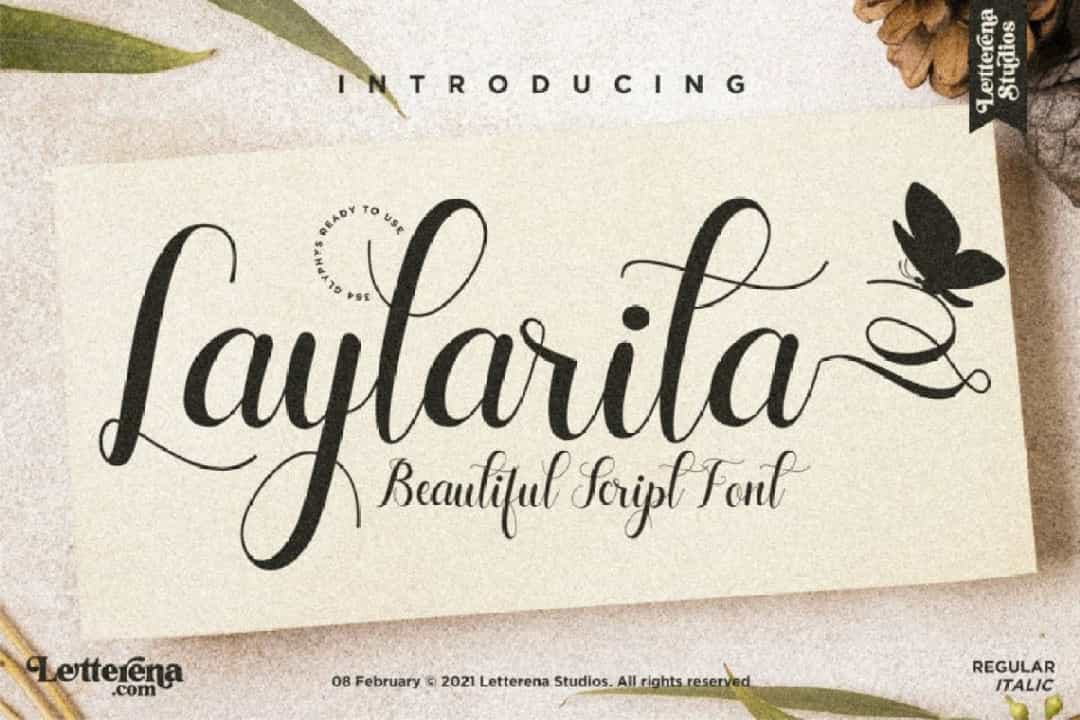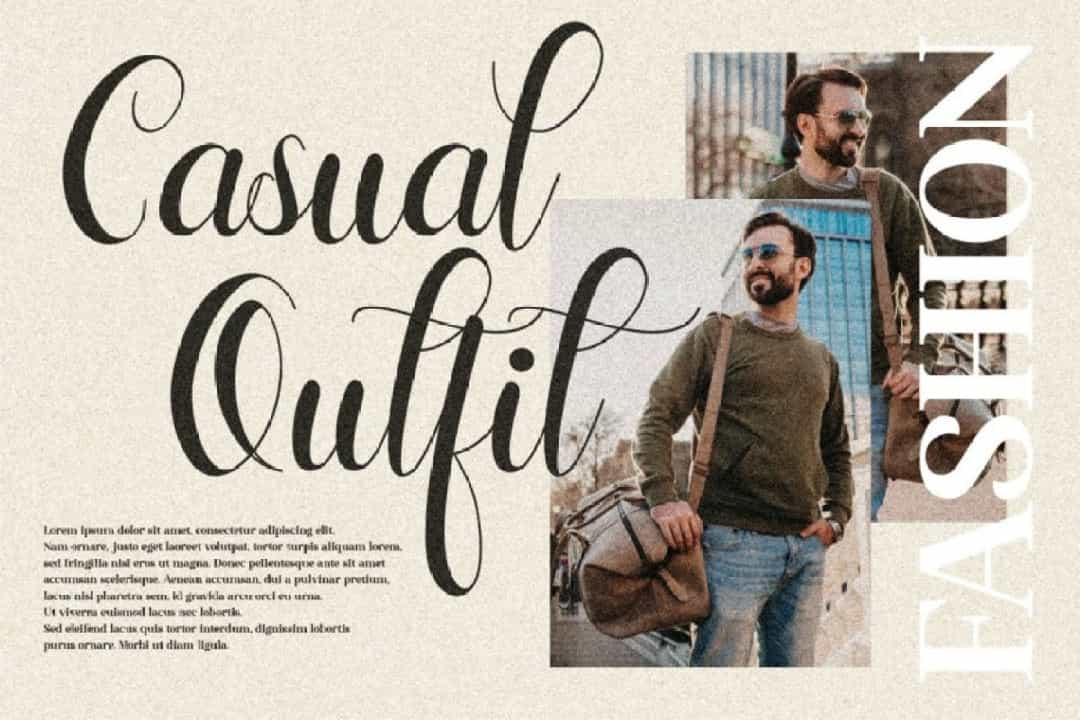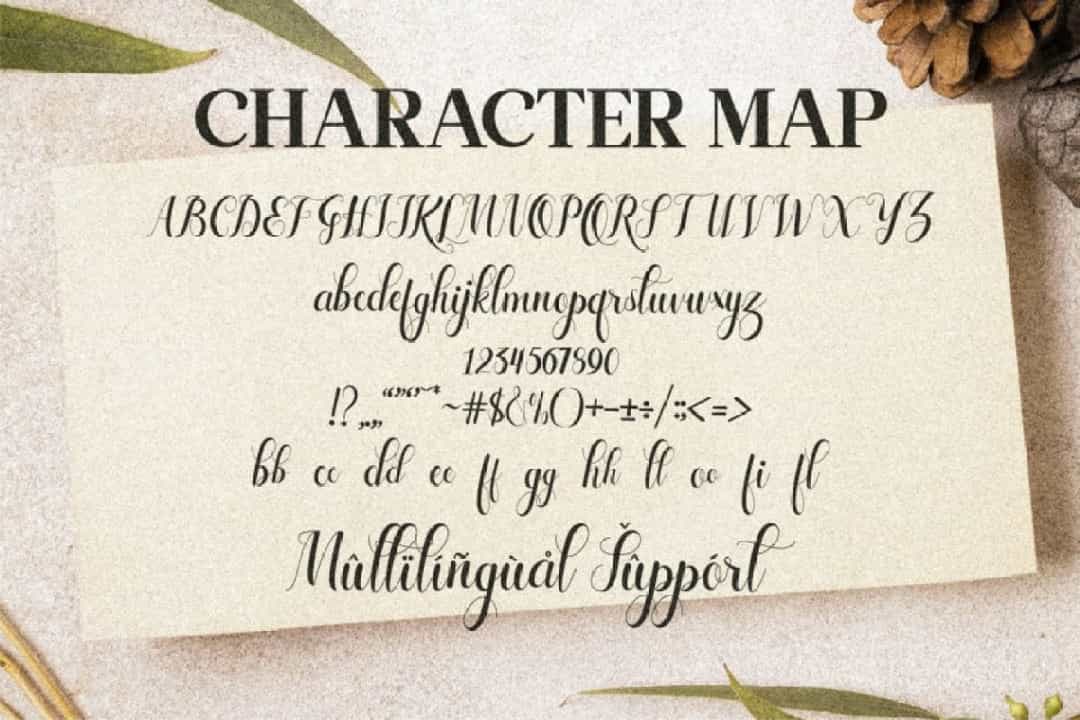
The Laylarita Beautiful Font from Letterena is perfect script font that can be used in logos, branding concepts and design projects such as homeware packaging for products such as mugs, posters, quotes, shopping bags, t-shirts, books, name cards, greeting cards, invitation cards, labels, photographs, watermarks and other special occasions as well as any other projects that require stunning script look.